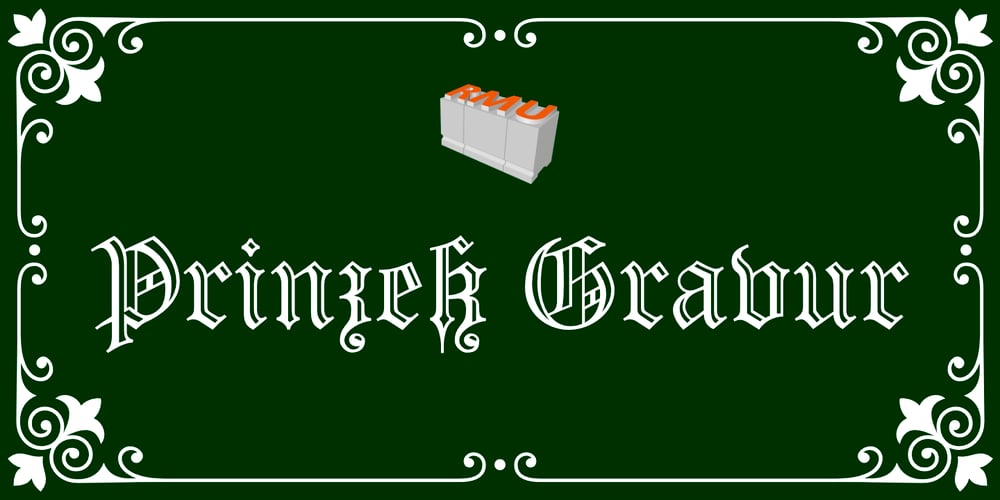
Prinzess Gravur Font Family was designed by Ralph M. Unger and published by RMU. Prinzess Gravur contains 1 styles and family package options. In 1905 Berthold released an engraved blackletter font called Prinzess Kupferstichschrift. Based on an old printed remnant, I revived this beautiful open-face fraktur and enriched it with several OpenType features. As usual in my blackletter fonts, the round ‘s’ lies on the number sign key, and a traditional number sign can be accessed via the Discretionary Ligature feature and typing ‘N-r-period’. In this font you have also the possibility to turn I, V, X, L, C, D, and M into Roman numerals by activating the Stylistic Alternates feature. And last but not least, various useful ligatures polish up this font.